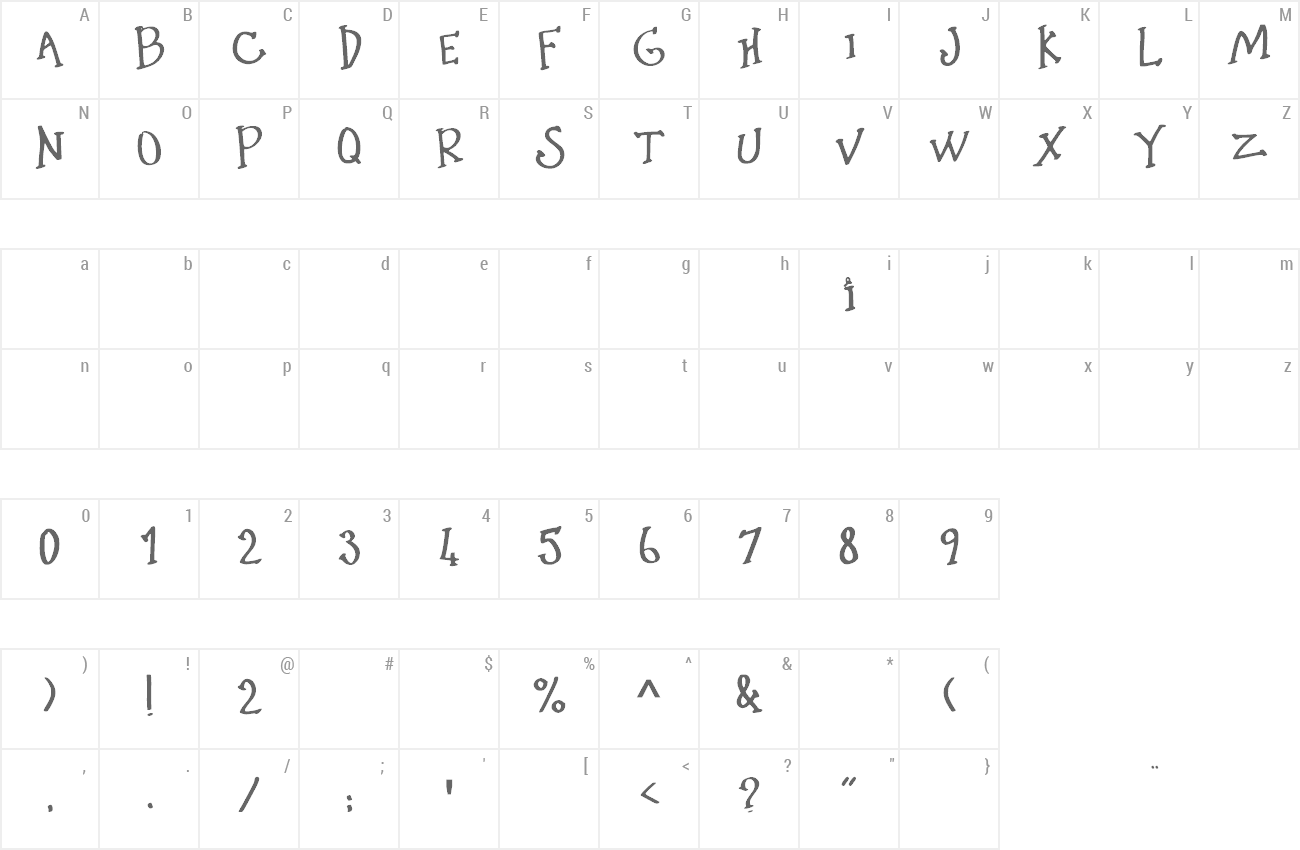
| Font name: | Little Pink Shit |
| Author: | Mercan Alper |
| Note by Mercan Alper | |
| Funny font for pink lovers. Life happens. Be positive. Be Pink. |